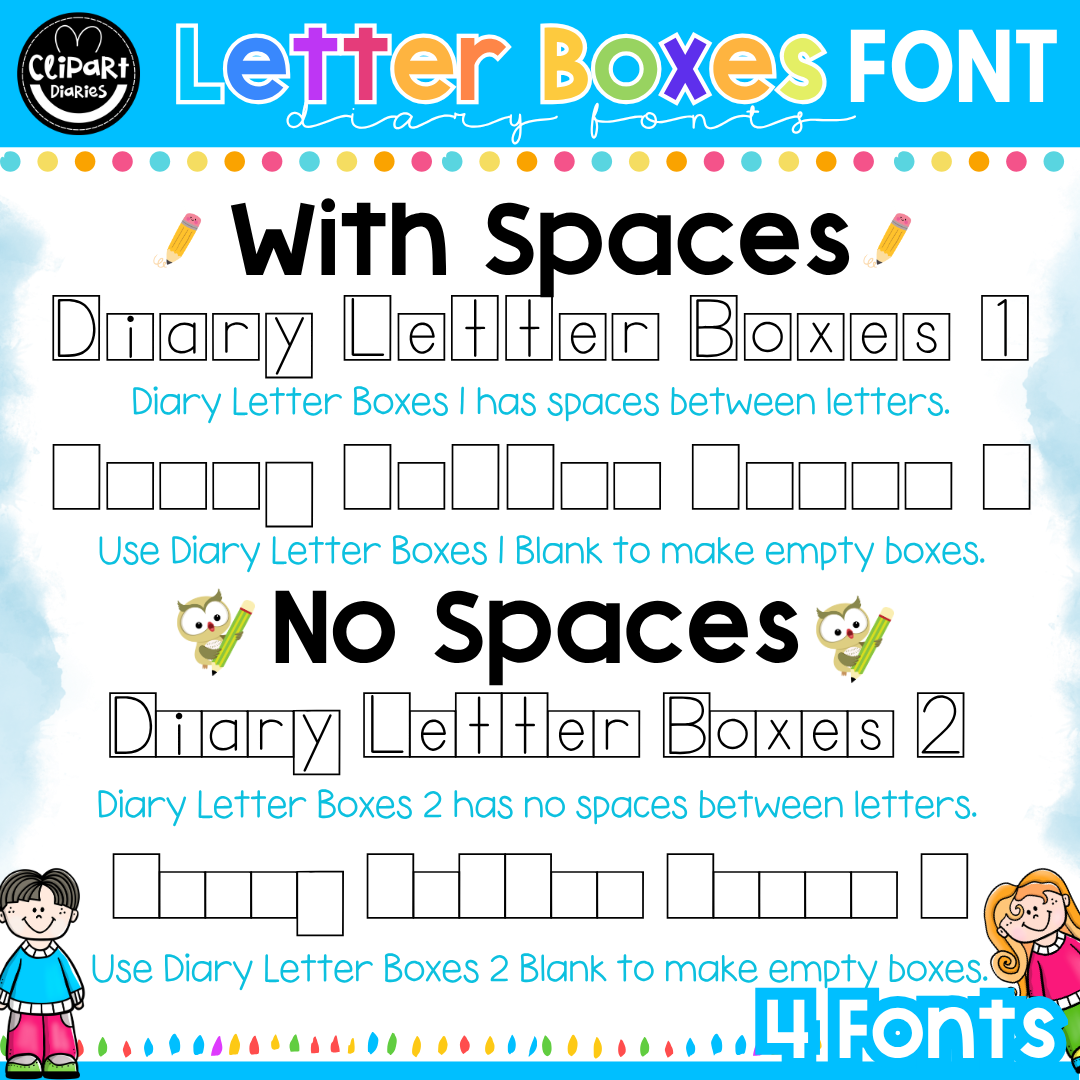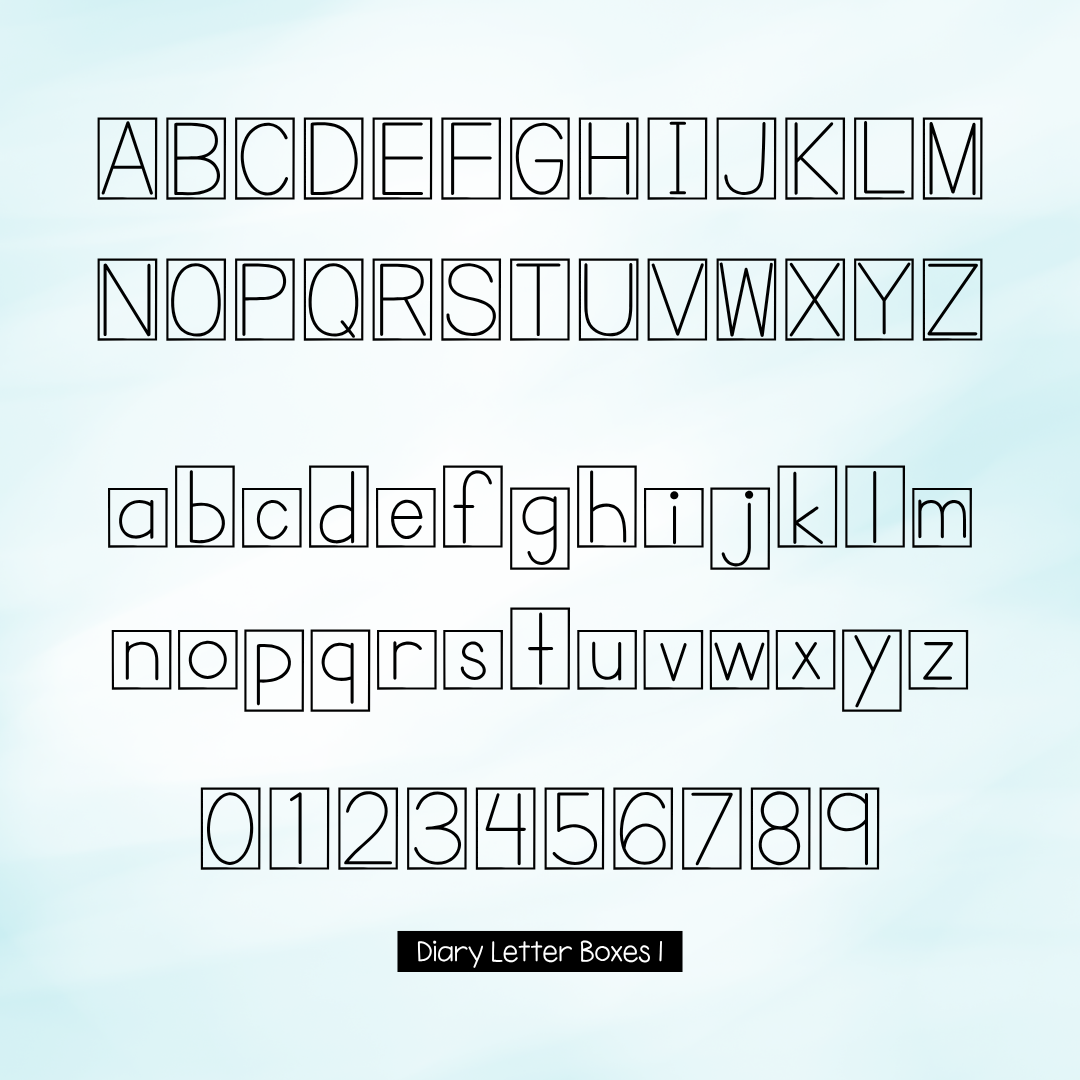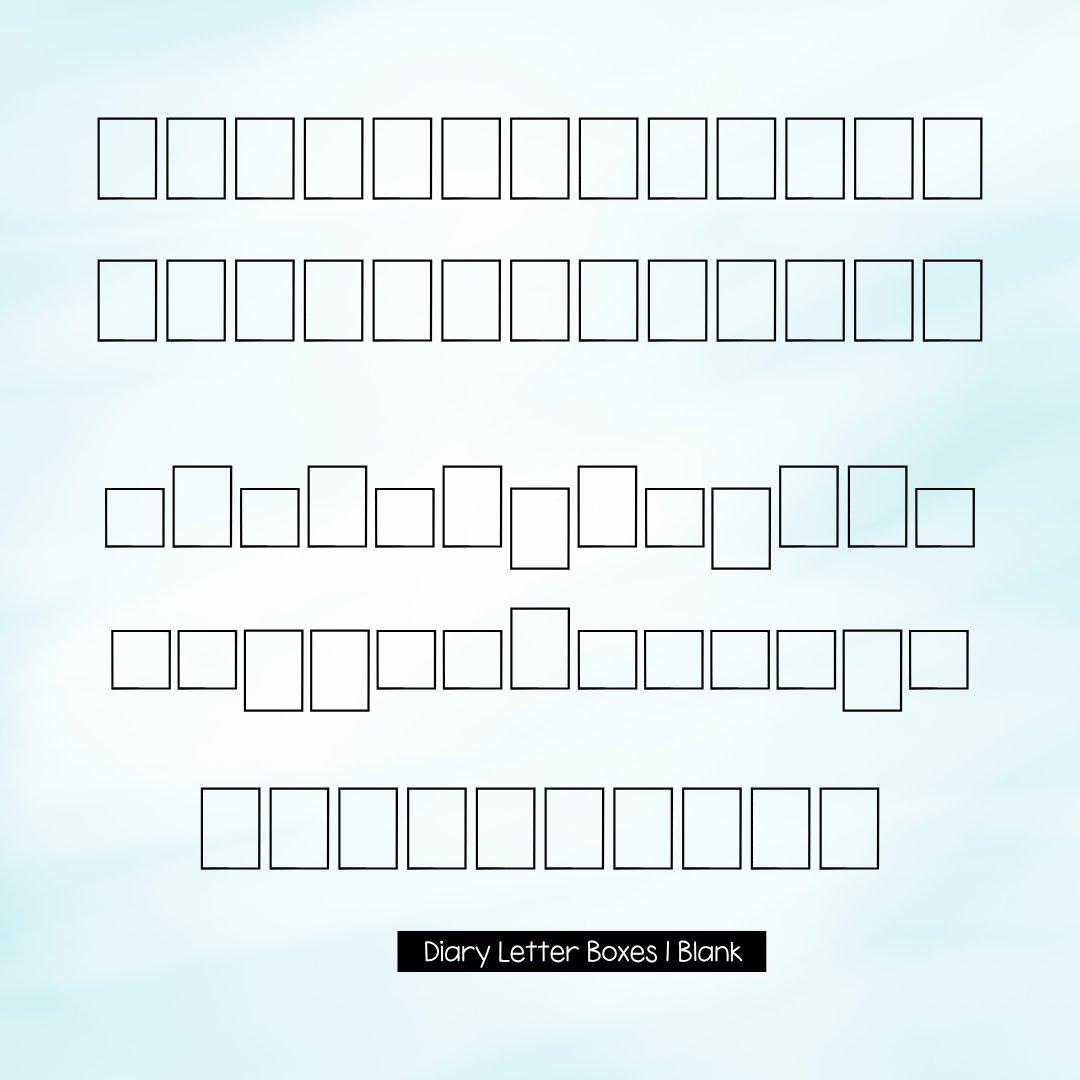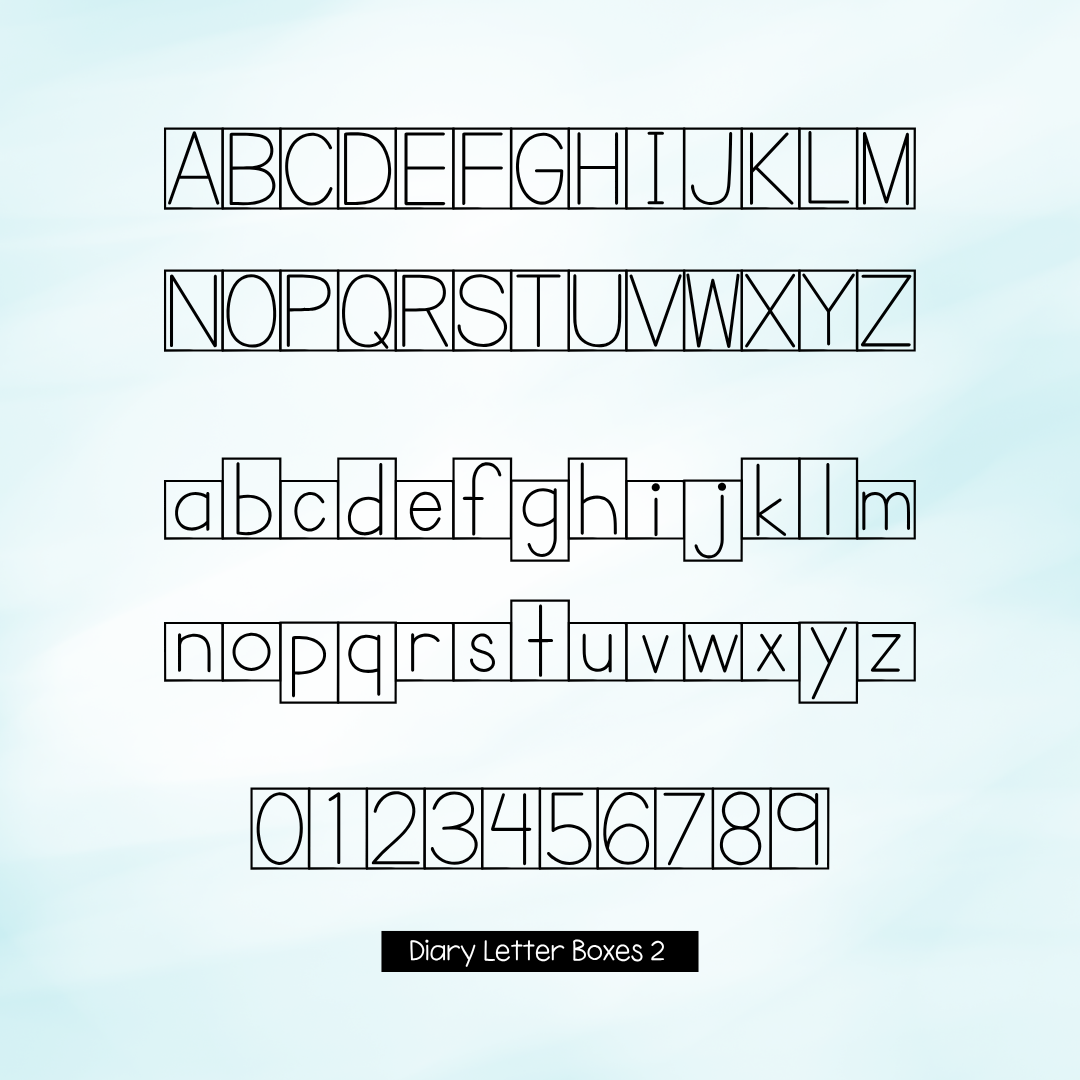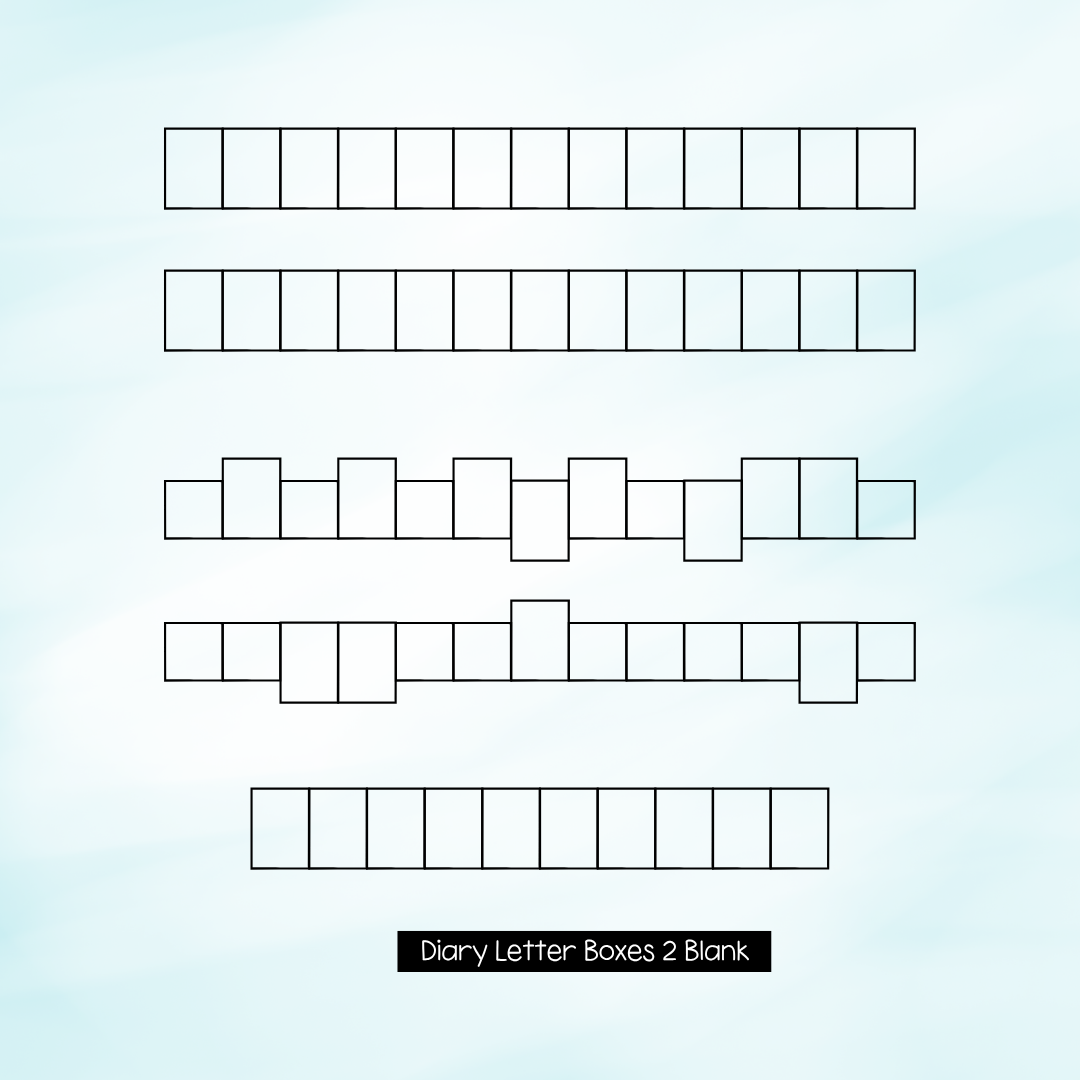
Diary Letter Boxes 1
Diary Letter Boxes 1 Blank
Diary Letter Boxes 2
Diary Letter Boxes 2 Blank
A font that suits resources that require students to write letters of the words in the shape of the box that fits. Shape box letters can be fun for student activities like vocabulary, puzzles, and handwriting strategies.
This contains two styles, one spaced out and the other with boxes with closed gaps. Each style has a version with empty boxes.
Use Diary Letter Boxes 1 to have letters with gaps. To have empty boxes, use Diary Letter Boxes 1 Blank font.
Use Diary Letter Boxes 2 to have letters with no gaps. To have empty boxes, use Diary Letter Boxes 2 Blank font.